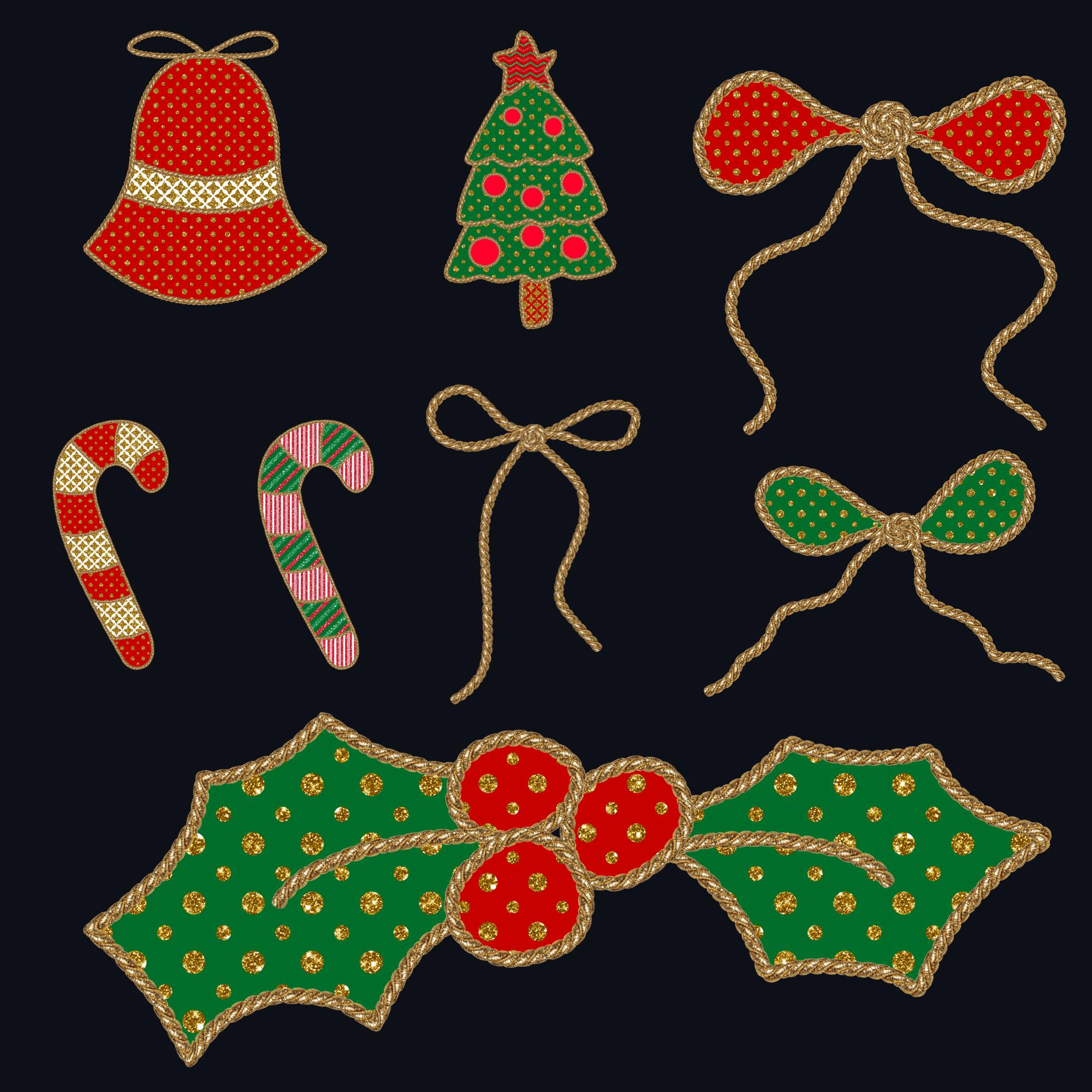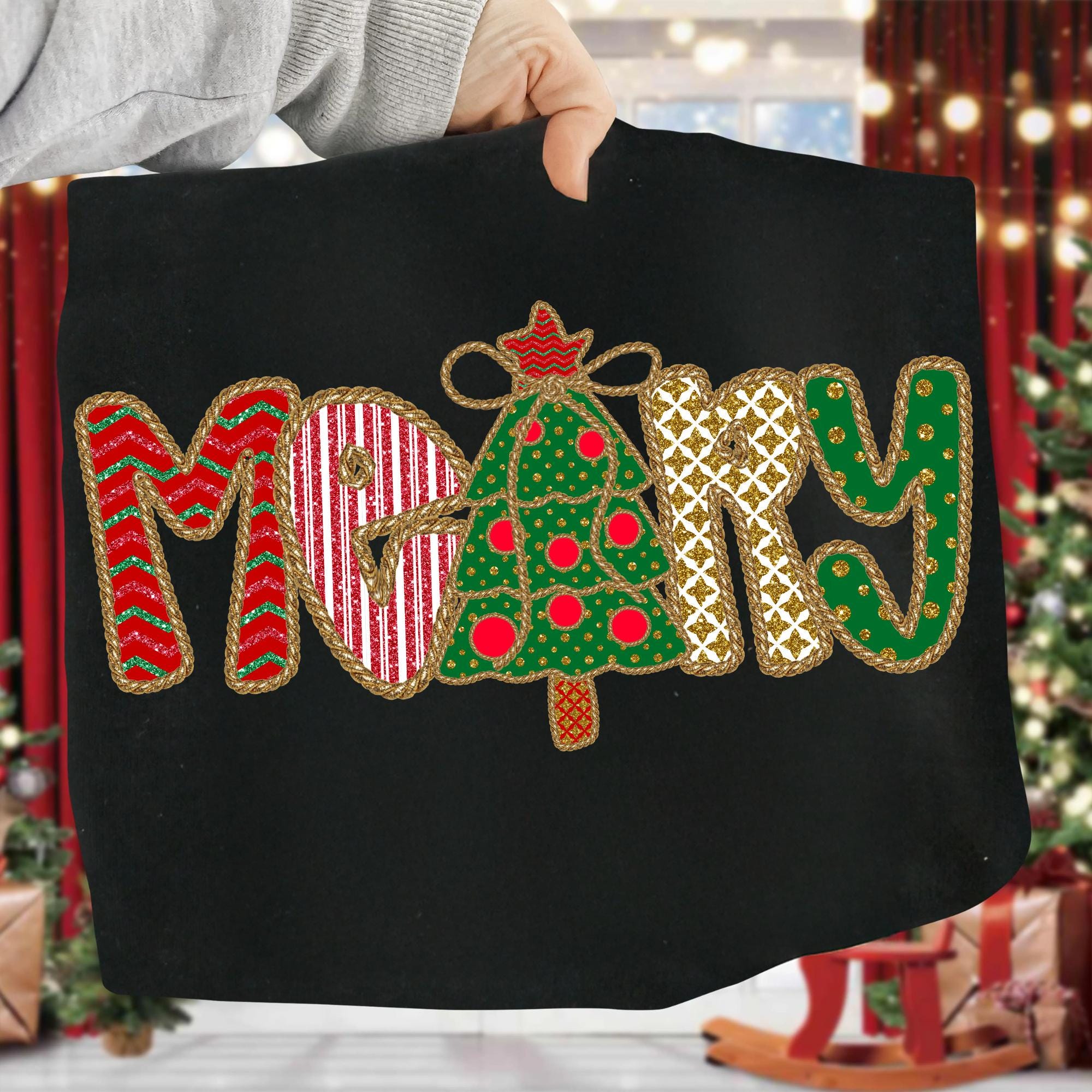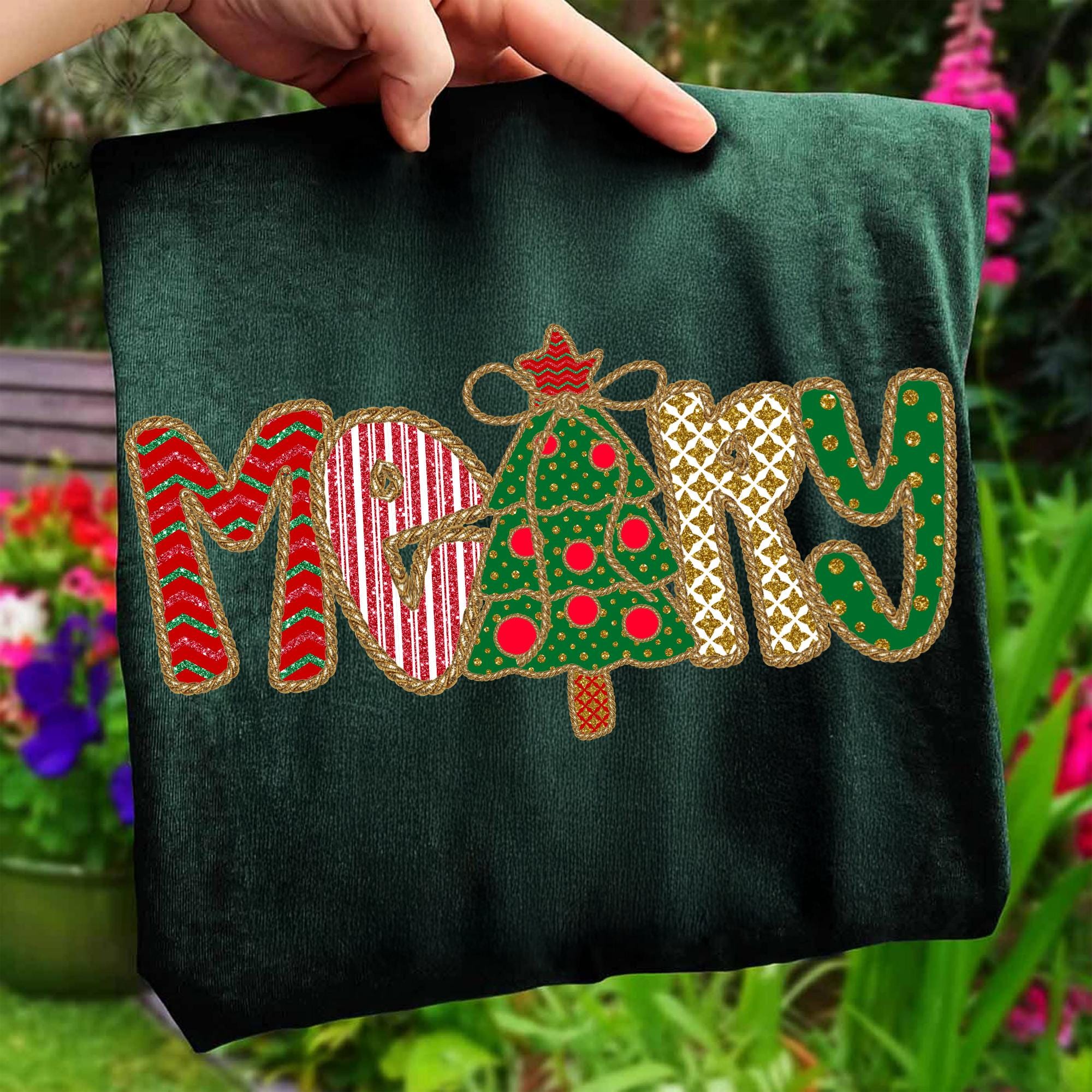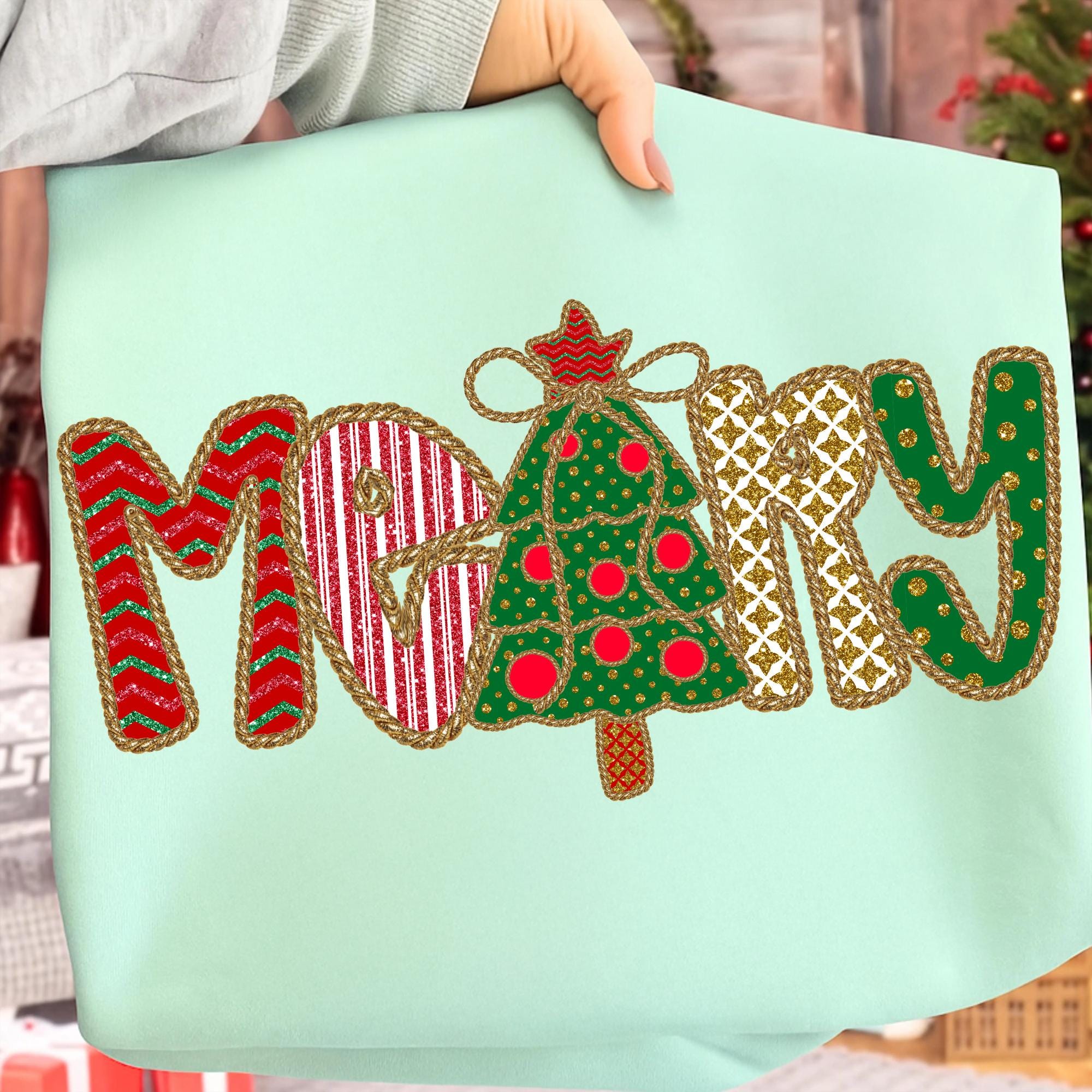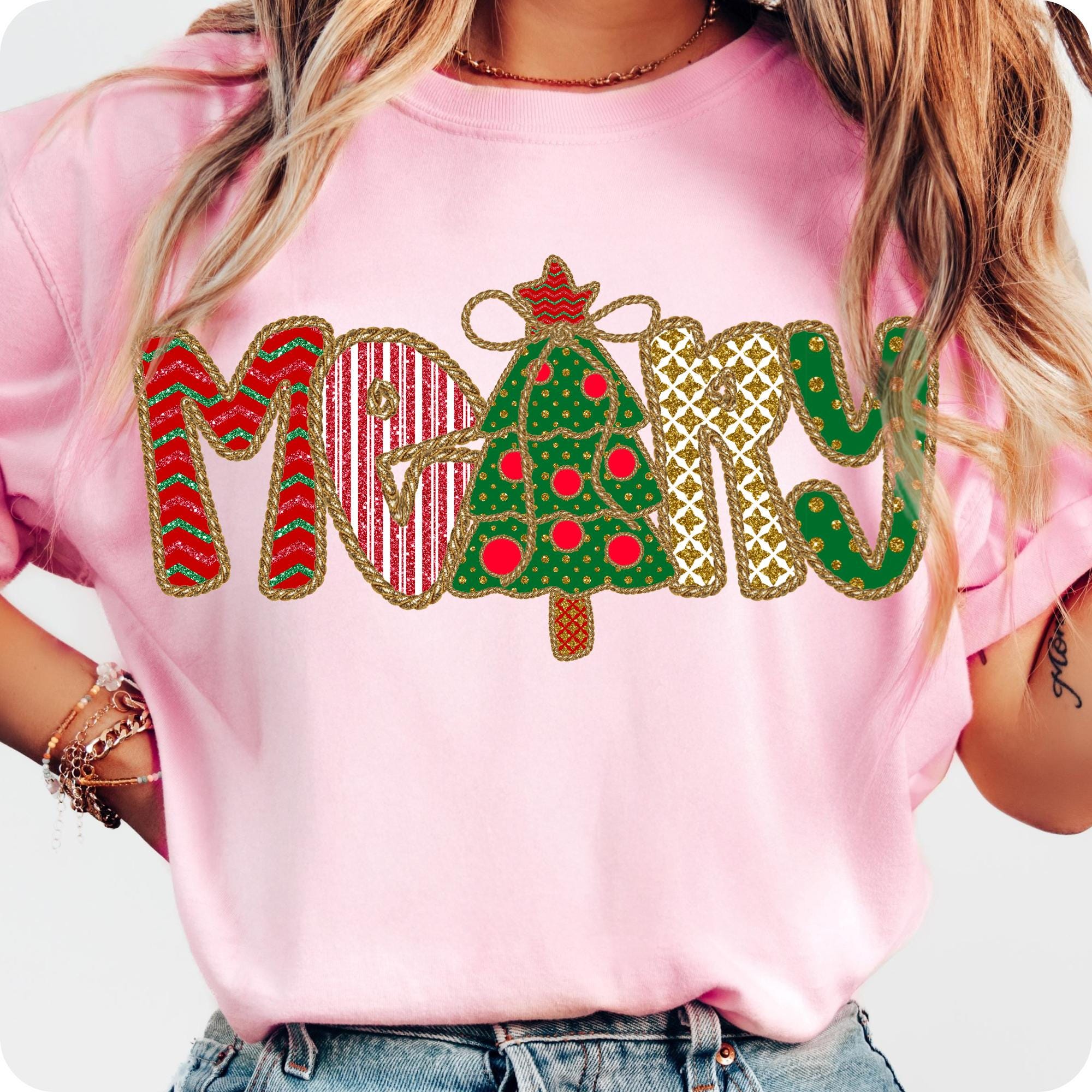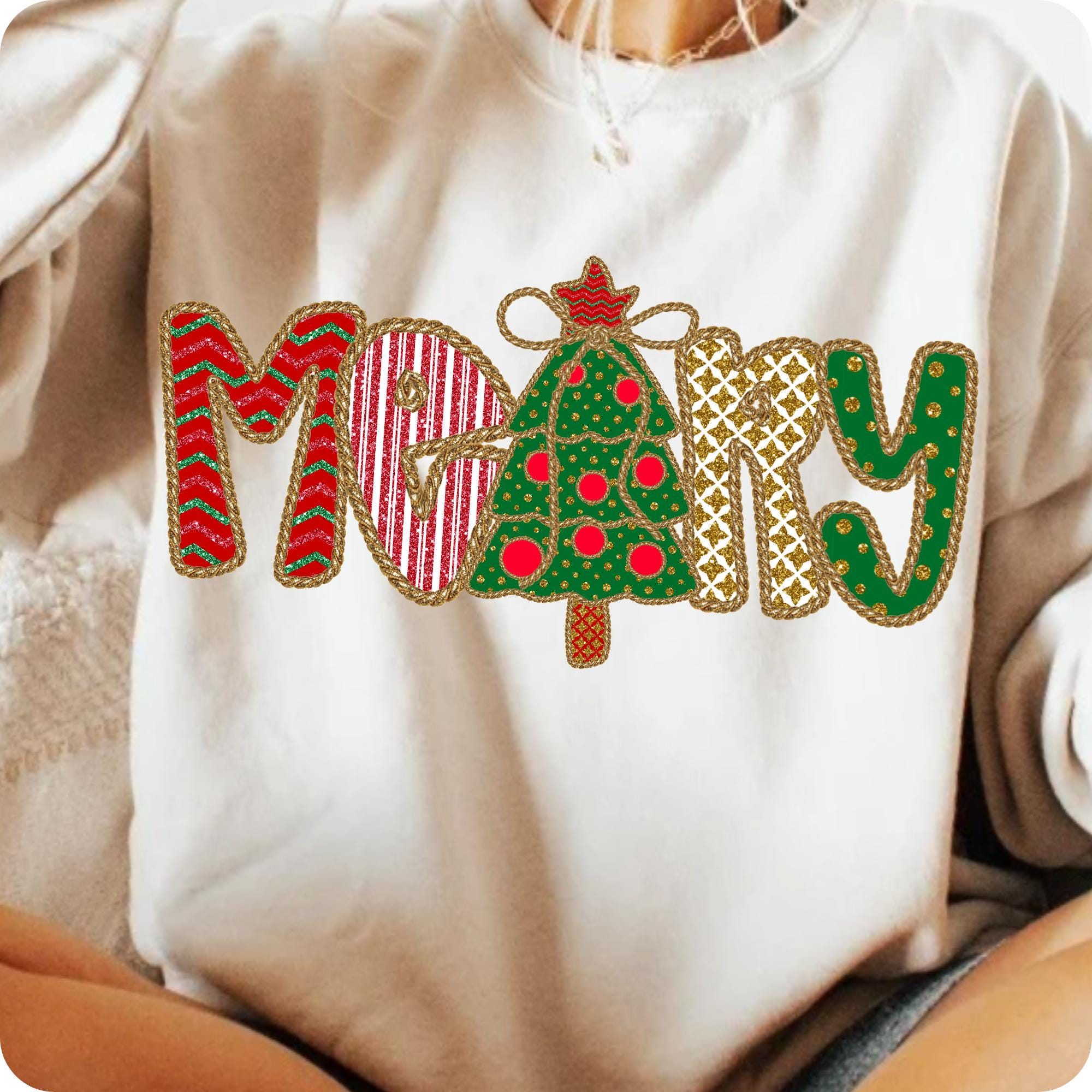
Bring a festive sparkle to your holiday creations with this Coquette Christmas Font PNG set, featuring a luxurious blend of lace, glitter, and preppy charm. These high-resolution digital alphabet letters, numbers, and clipart elements are perfect for sublimation, holiday cards, and girly Christmas crafts. Whether you're designing custom ornaments or adding flair to holiday apparel, this elegant font set adds personality and magic to every project.
Complete the uppercase alphabet A–Z
Numbers 0–9
Bonus clipart in matching style